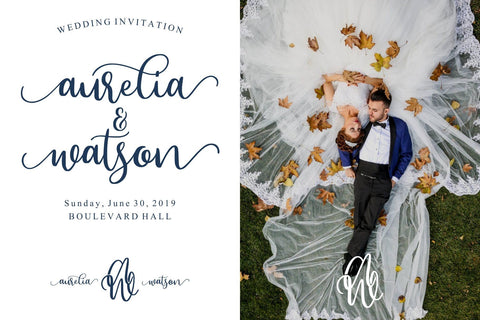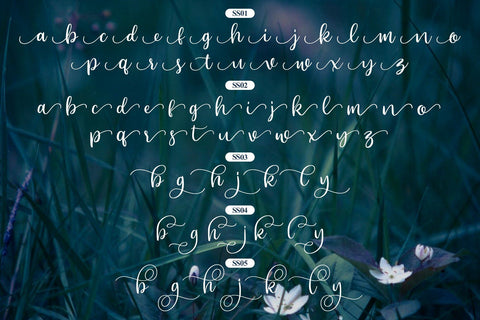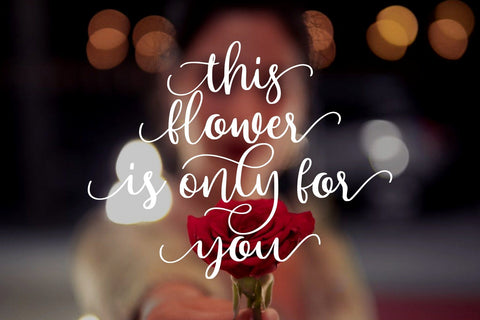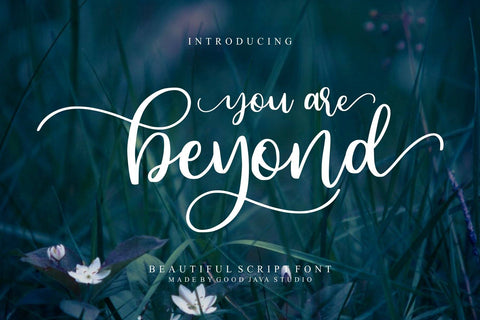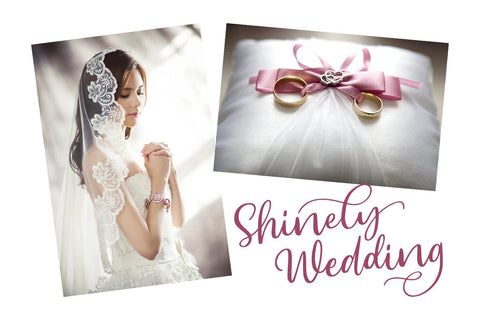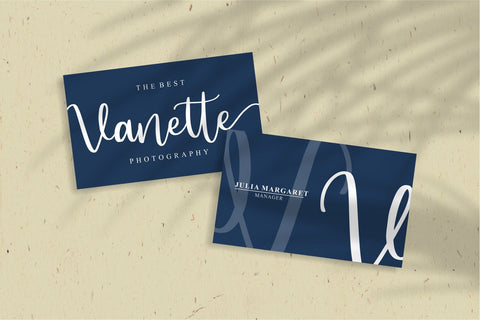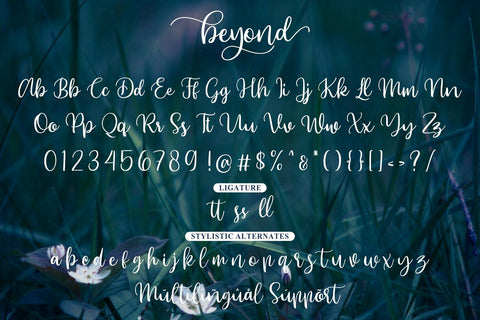
Beyond – Beauty Font
Beyond a Beauty Font is a natural & modern handwritten font. I’ts Perfect for logo, invitation, stationery, wedding designs, social media posts, advertisements, product packaging, product designs, label, photography, watermark, special events or anything. This font include : Beyonce OTF-TTF , Standar Ligatures, Stylistic Sets (SS01-SS05), Stylistic Alternates and also Multilingual support.
What’s Advantages Beyond?
- Very great for branding, logotype, handletteing, invitations, or fashion branding.